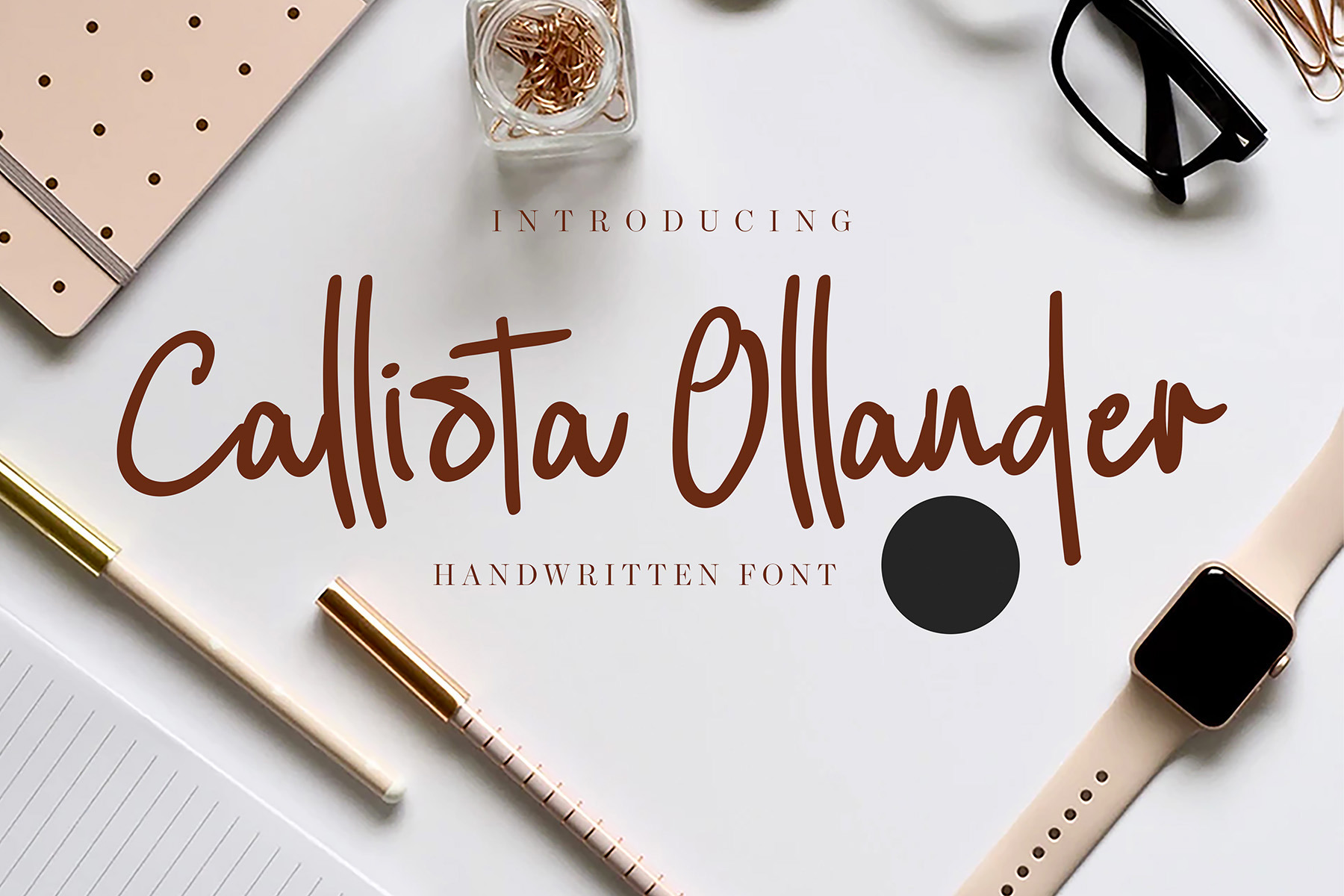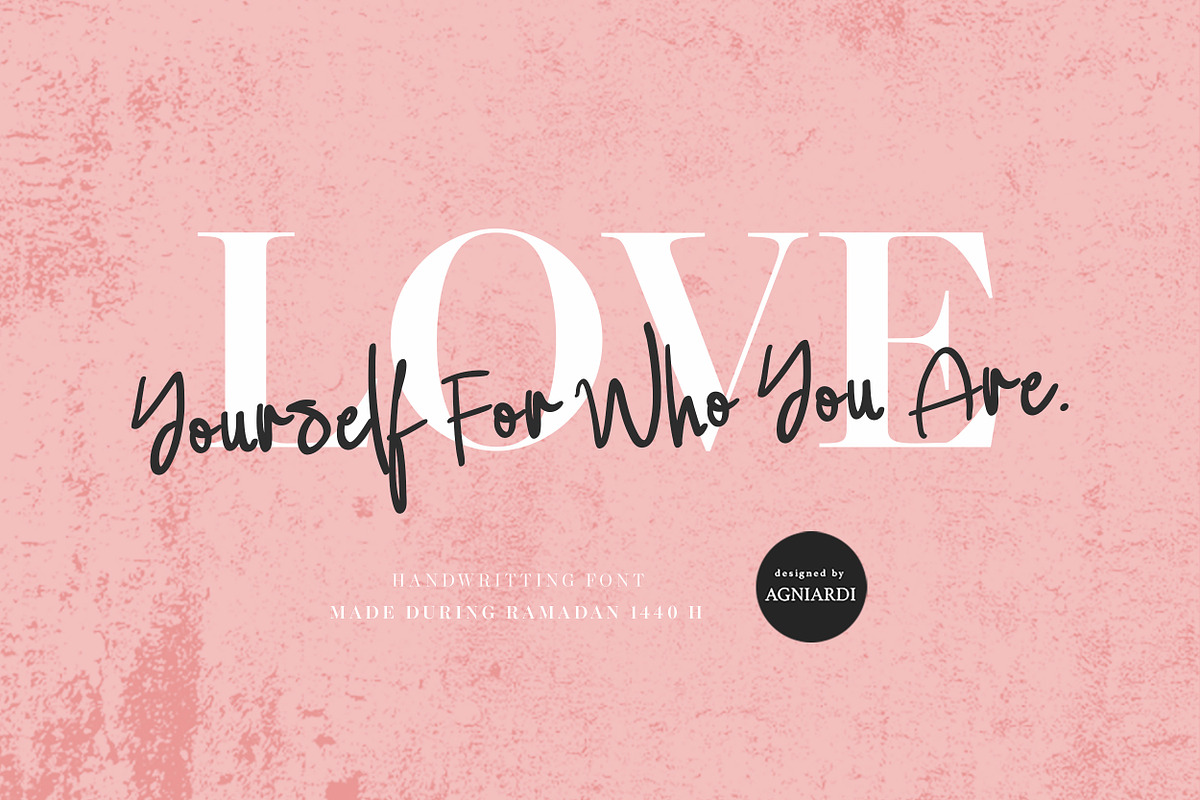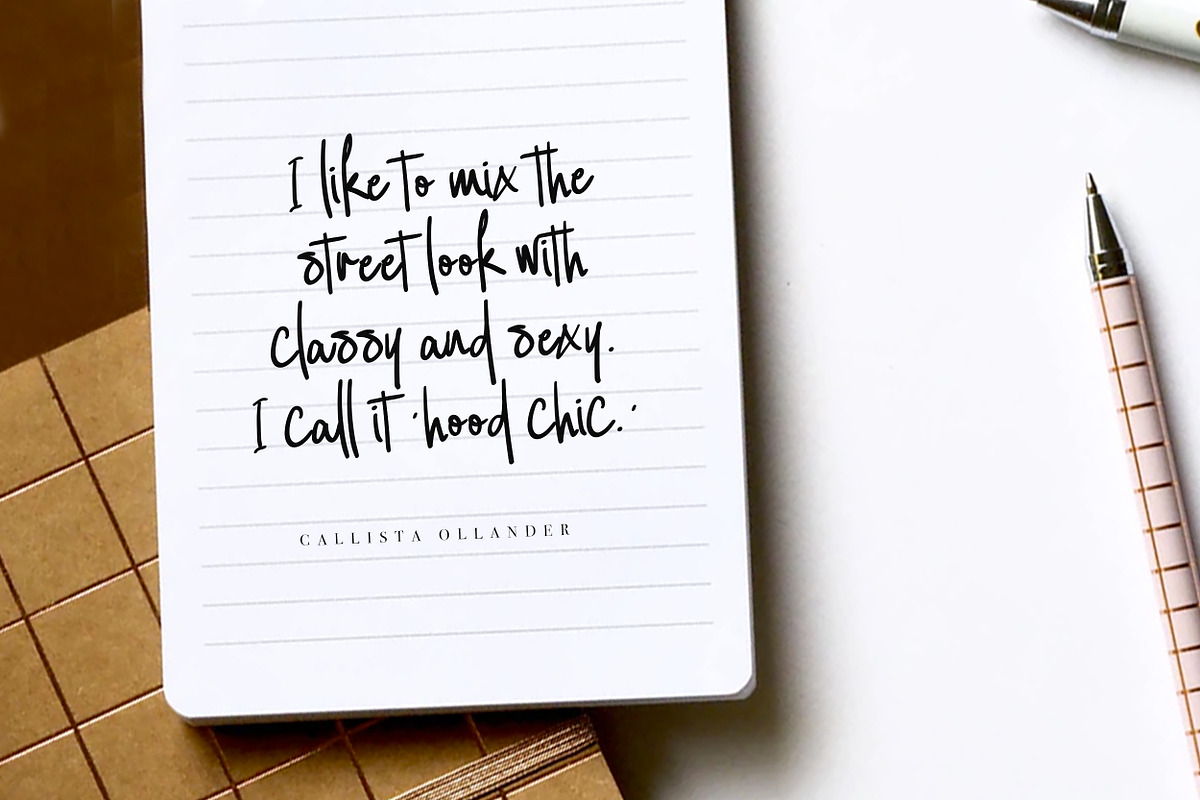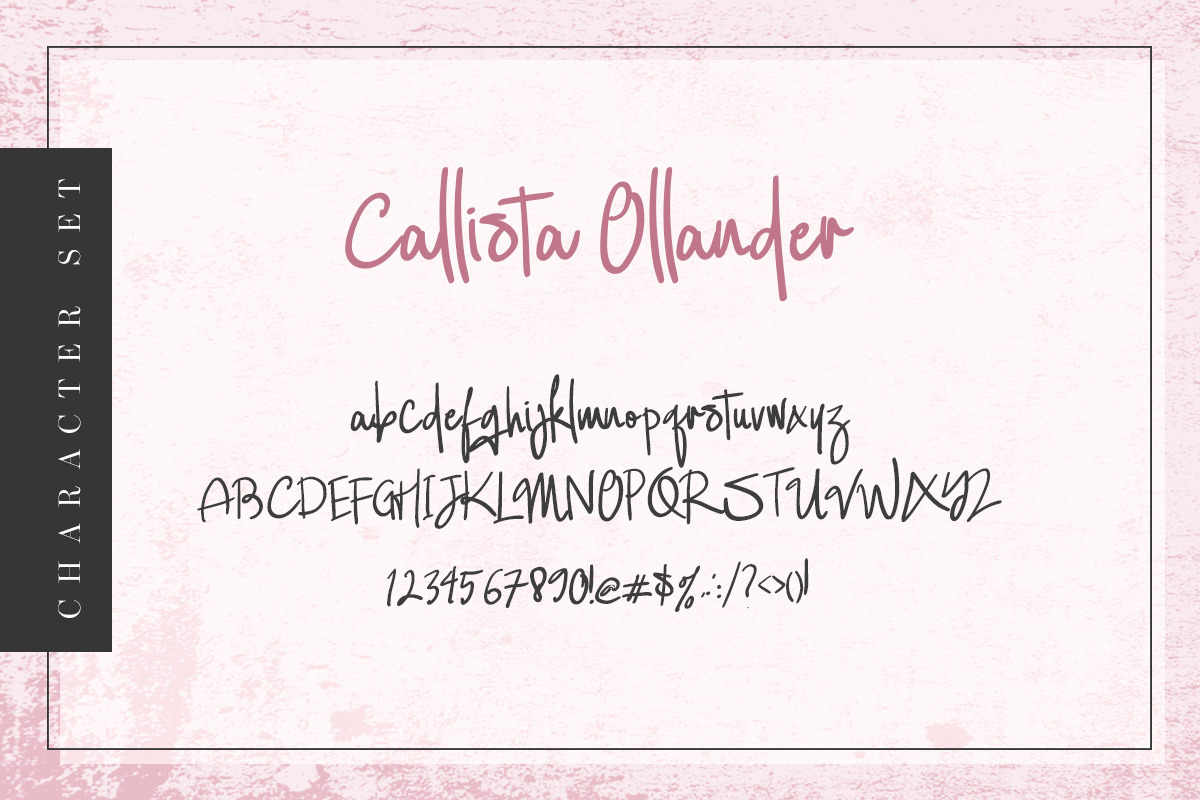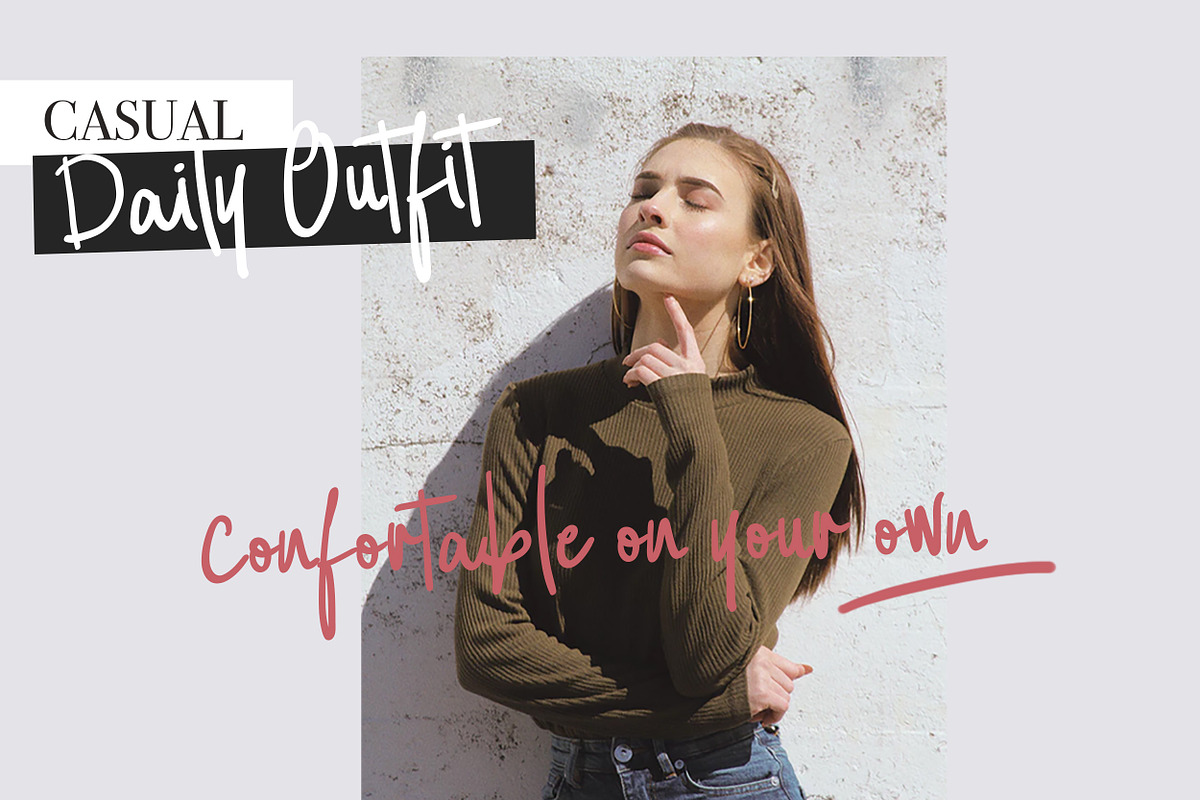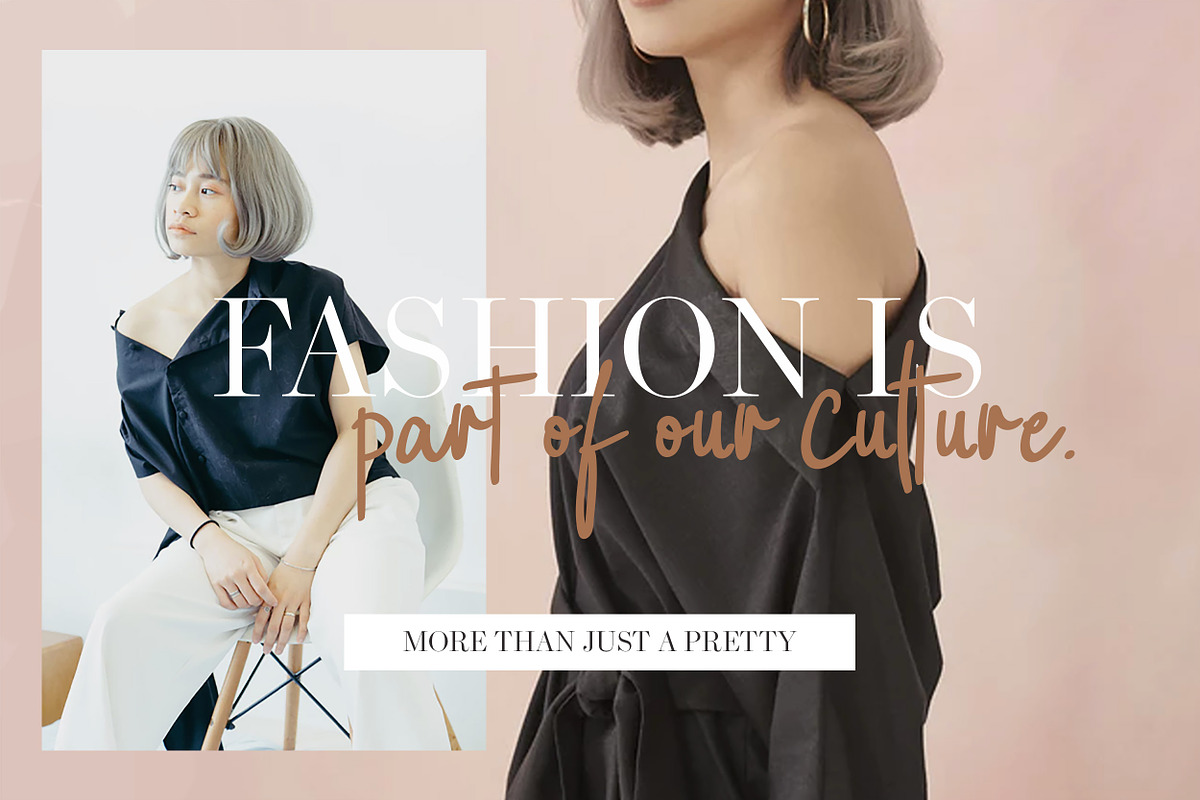
Callista Ollander Font
Callista Ollander is a modern and elegant handwritten font with an authentic feel. It will turn any design project into a true stand out!